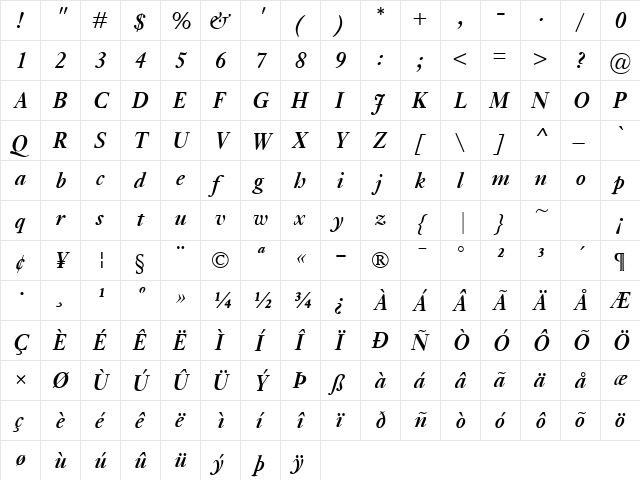
Kis Classico BoldItalic Font Preview
Design Context for Kis Classico Typeface
Kis Classico wears its vintage influences proudly, with letterforms that recall mid-century signage, classic packaging, and nostalgia-driven design. The dynamic lean of this cut emphasises speed and emphasis in any layout. The heavy weight commands attention and anchors typographic hierarchies.
Ideal for diner signage, record shop branding, 70s/80s-themed projects, and heritage product labels.
Font Pairing: Combine Kis Classico with a simple slab or neutral sans — period-accurate companions reinforce the vintage feel without competing for attention.
Pro Tip: Lean into Kis Classico's period character by pairing it with aged paper textures, muted colour palettes, and vintage illustration styles.